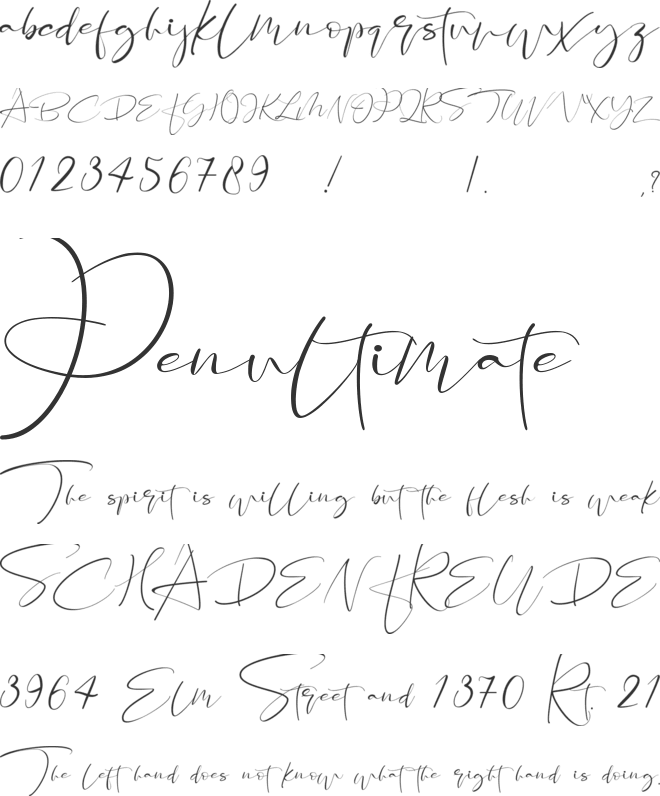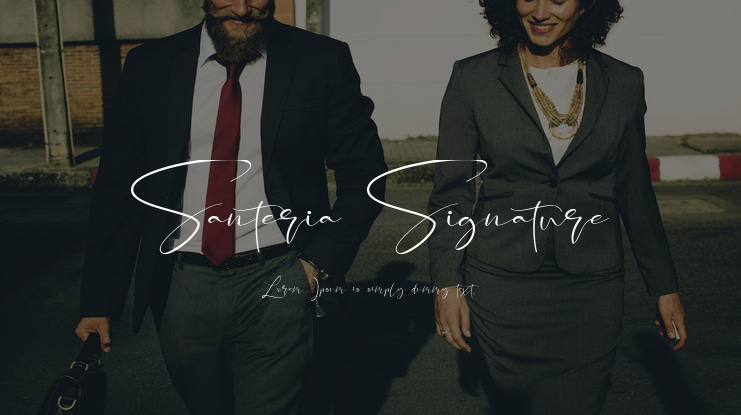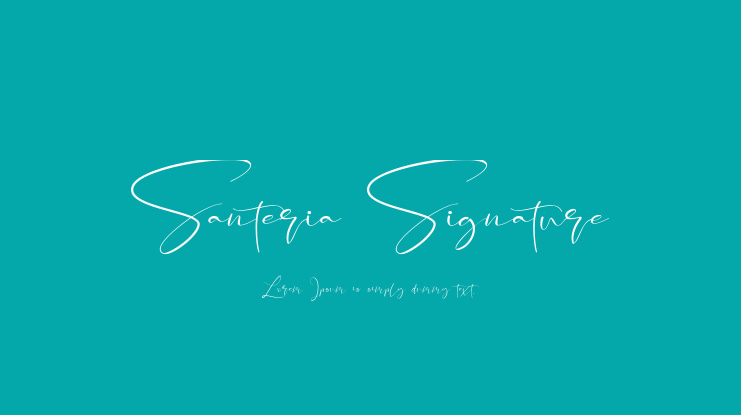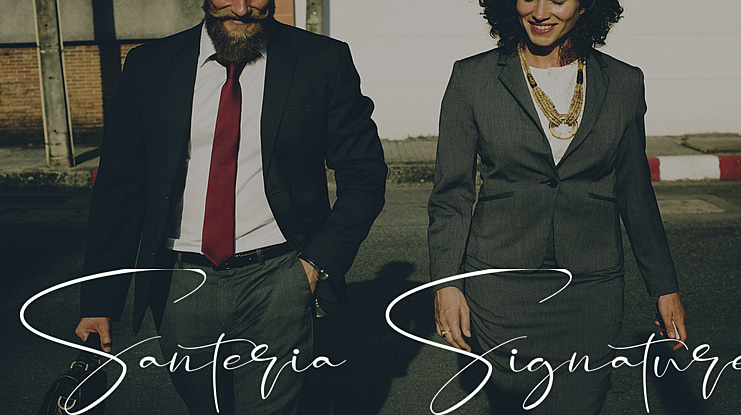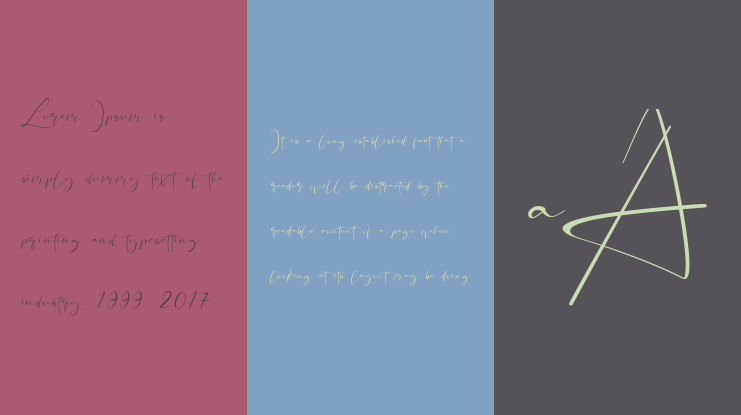
Santeria Signature Font
Santeria Signature is a beautiful calligraphy. It’s perfect for adding a luxurious touch to your logos, packagings, wedding stationary, websites, and every other designs which need a handwritten feel.
This family includes 2 styles which can be combined perfectly. Giving you the opportunity to create multiple unique designs in an instant.
A wide range of swashes (a-z),  alternates (A-Z), titiling (a-z) and 111 ligature  are included so that you can give your logo or name a custom, hand-calligraphy look.